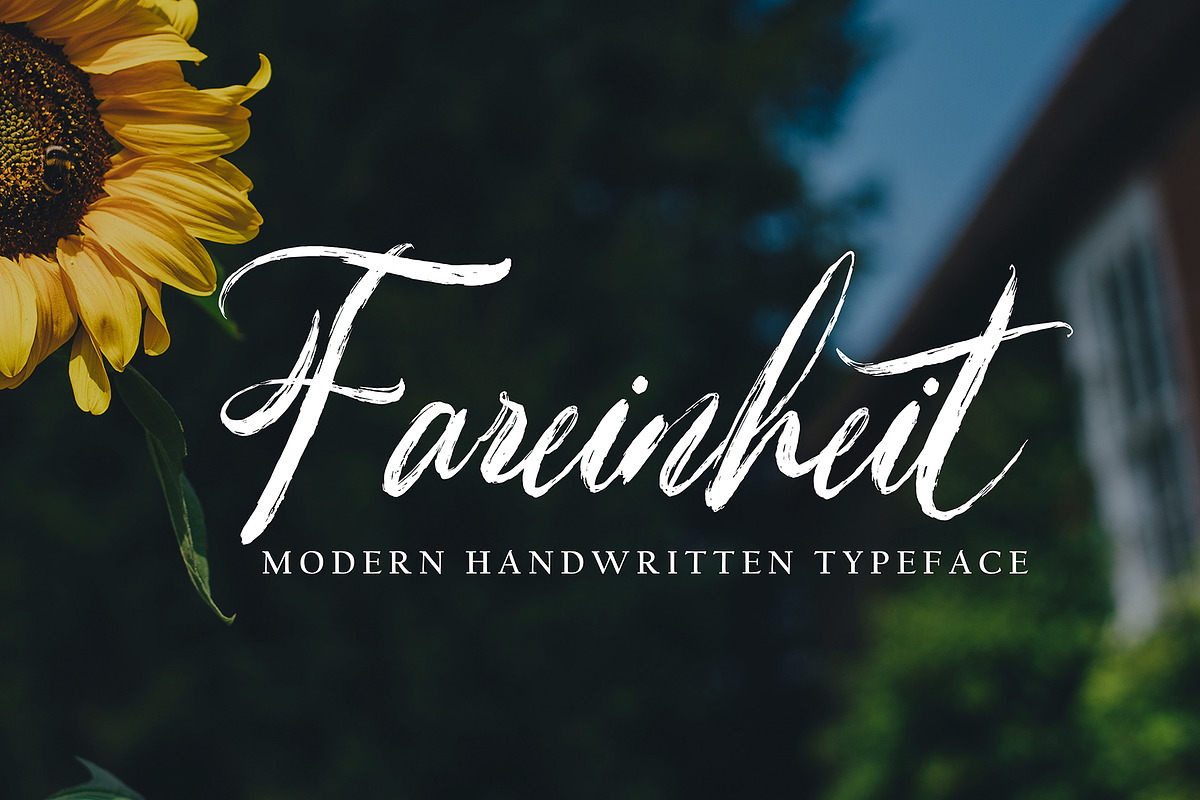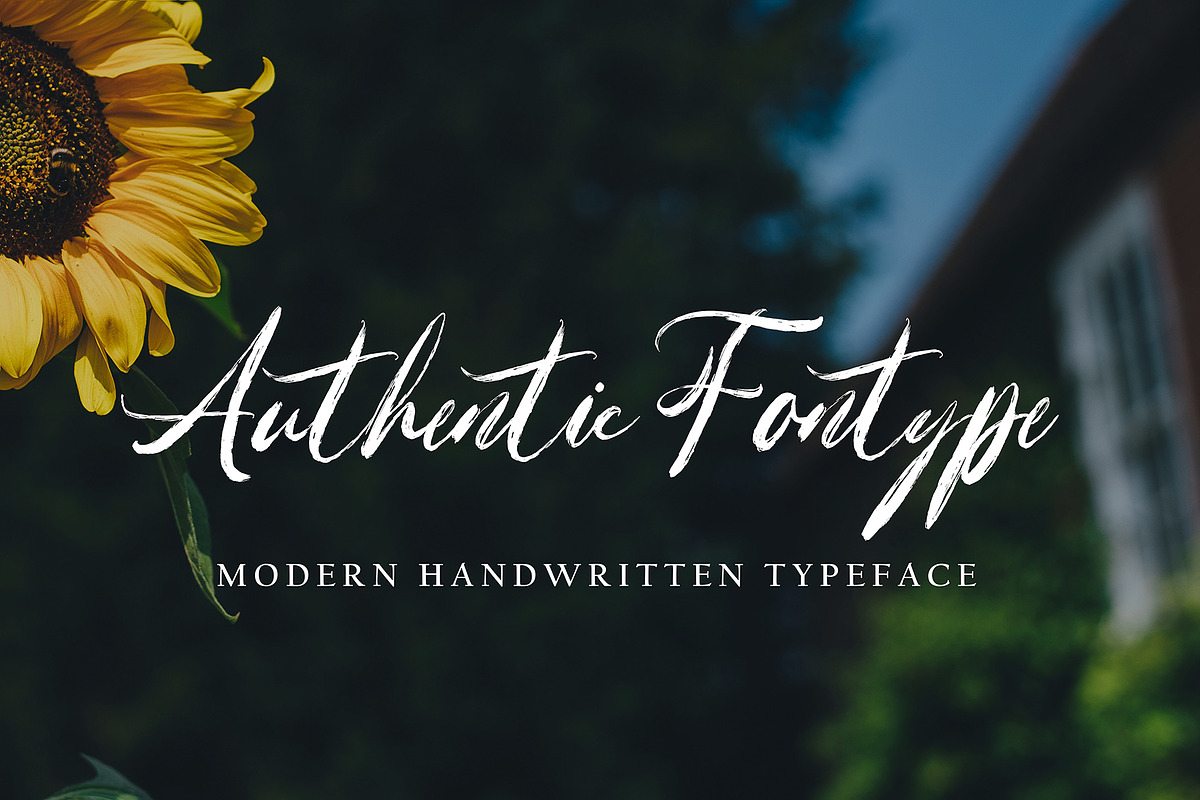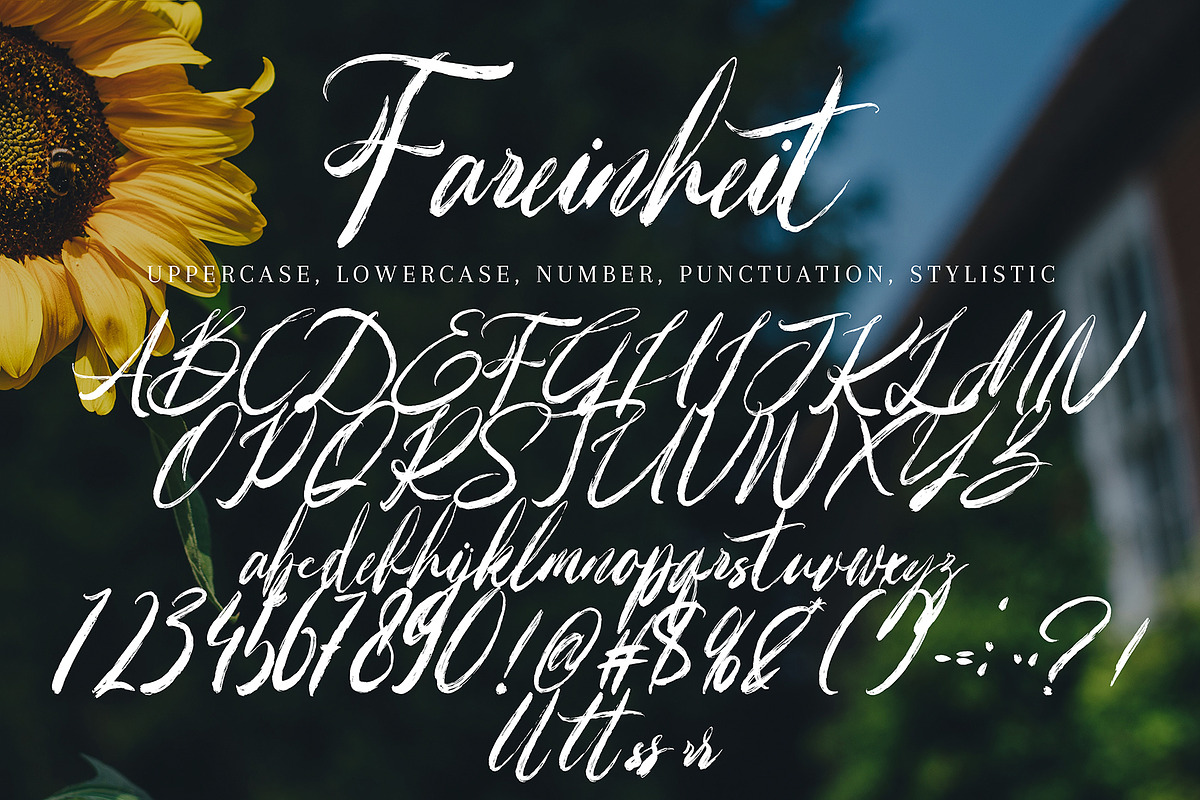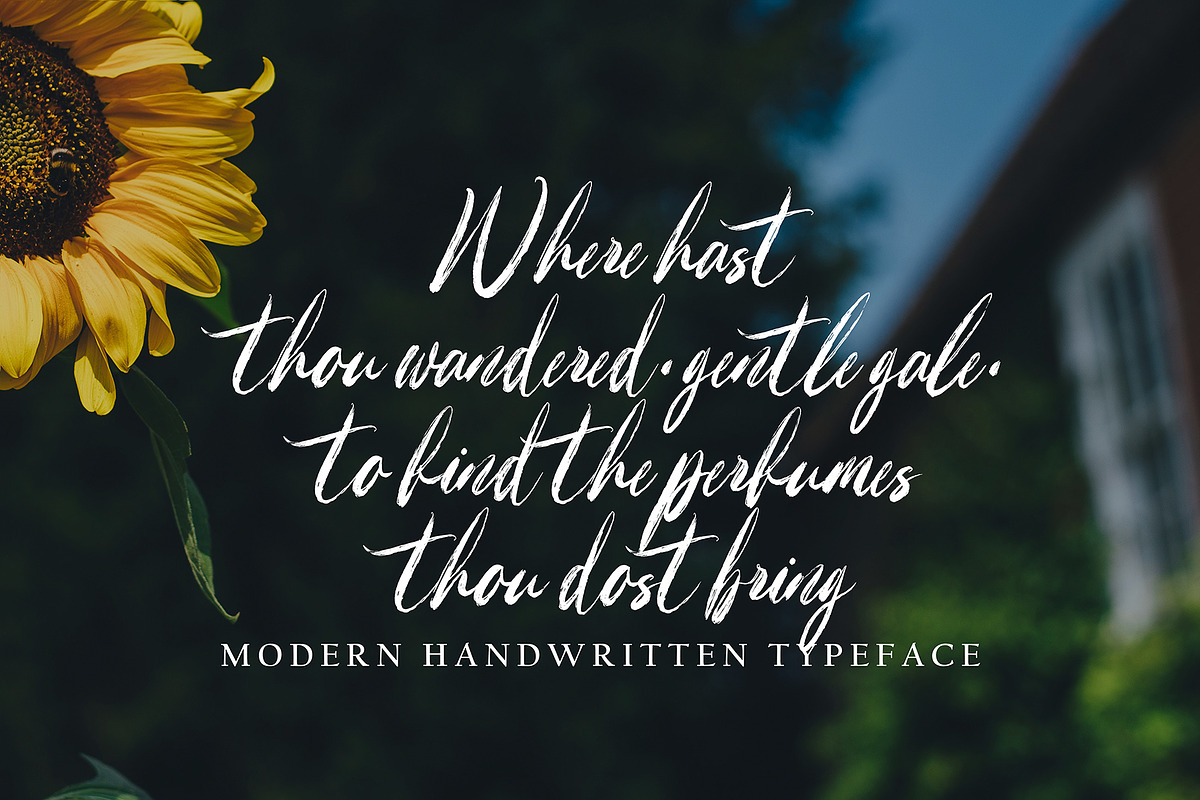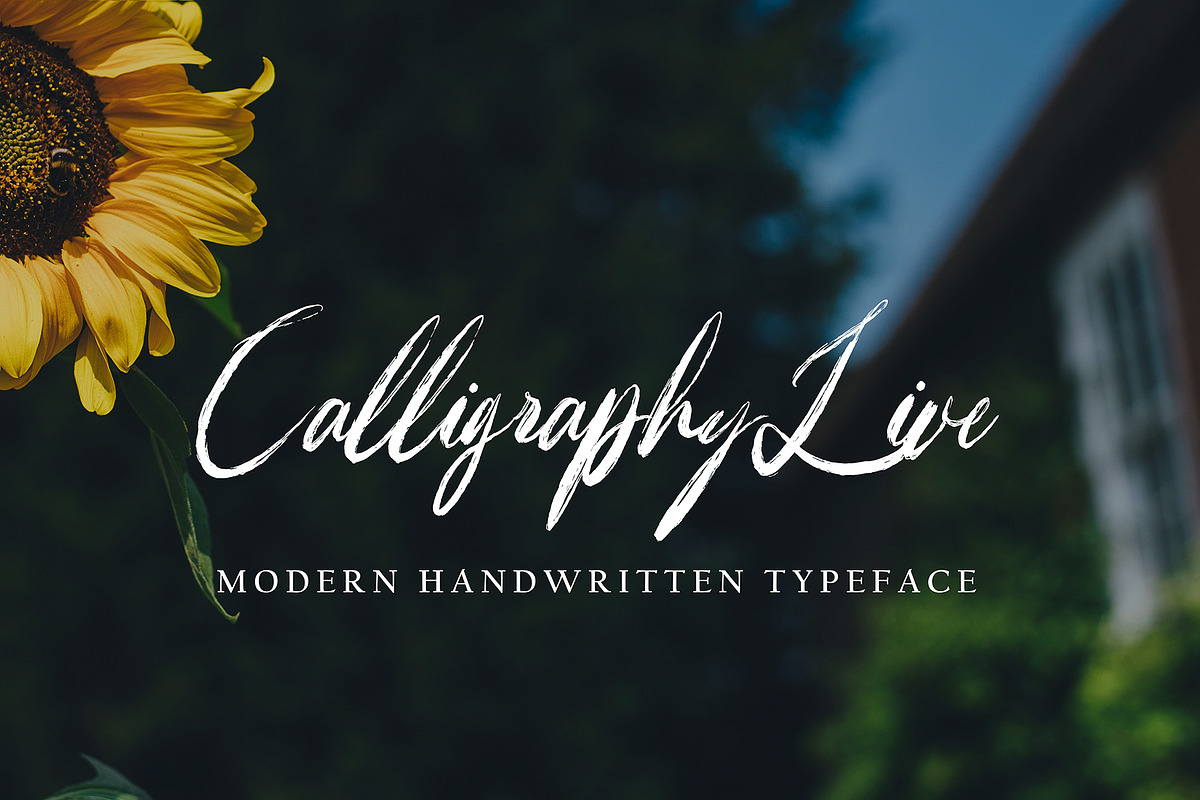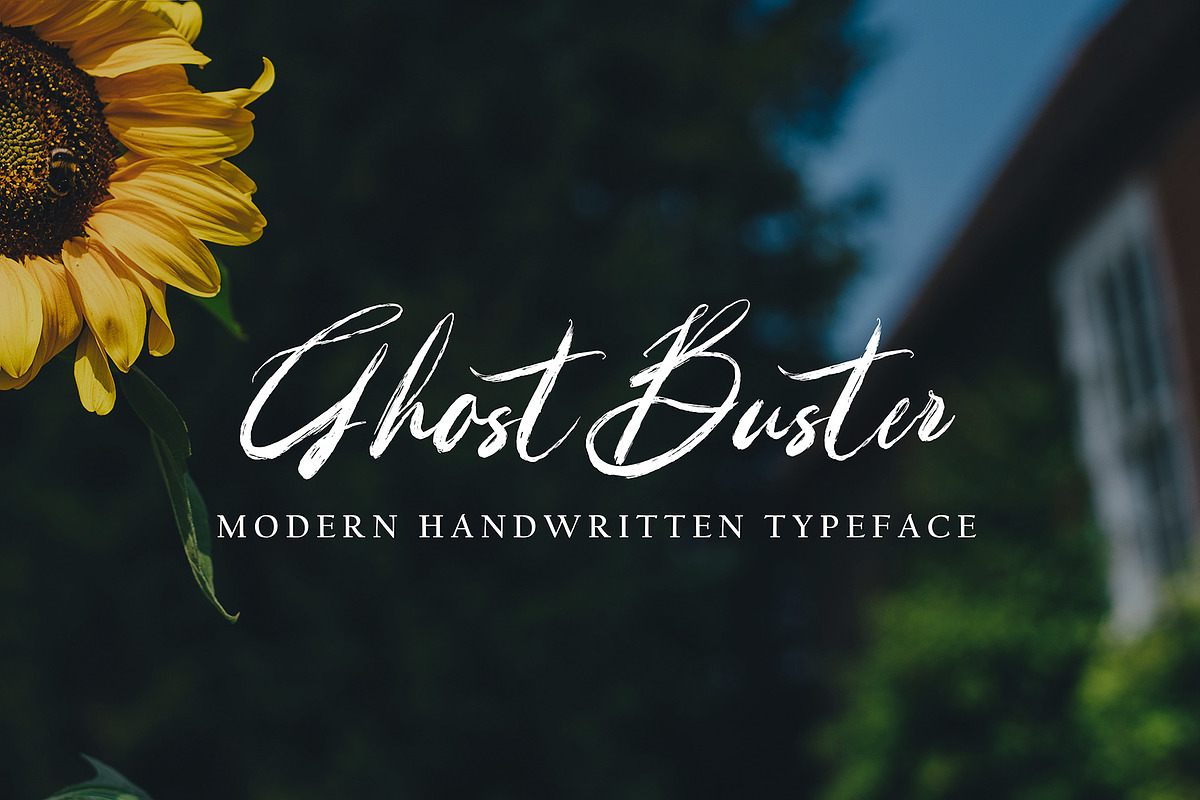
Fareinheit
Fareinheit with new style, this font will perfect for many different project ex: quotes, logo, blog header, poster, banding, letter, invitation, stationery, etc...